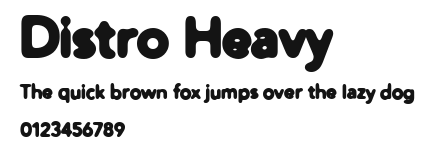
• Designer: Peter Ramsey & Apostrophe
• Description: Part of the Distro series of typefaces, handcrafted by the Swordfish Type Brewery. PO Box 26, Crawley, RH10 7XZ, UK. Not to be taken internally. Please visit our website for funky info!
Distro Heavy.ttf is a modern, elegant sans-serif font designed for ultimate readability and visual harmony. Perfect for branding, headlines, web design, and print materials.